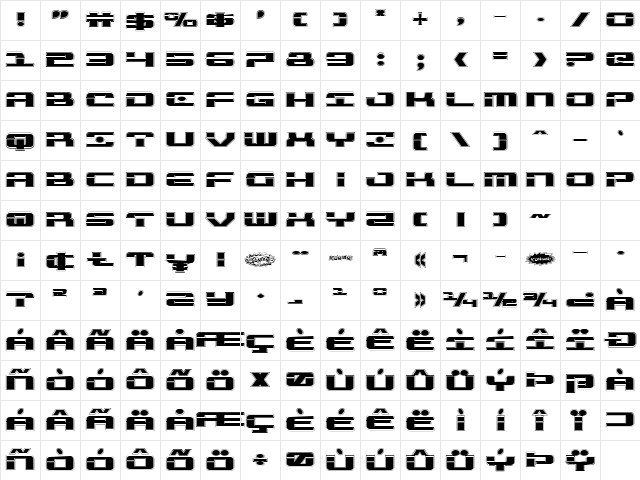
Troopers Academy Expanded Expanded
Style: Expanded
Design Context for Troopers Academy Expanded
Troopers Academy Expanded is a composed and adaptable typeface that performs quietly and consistently across a wide range of design contexts.